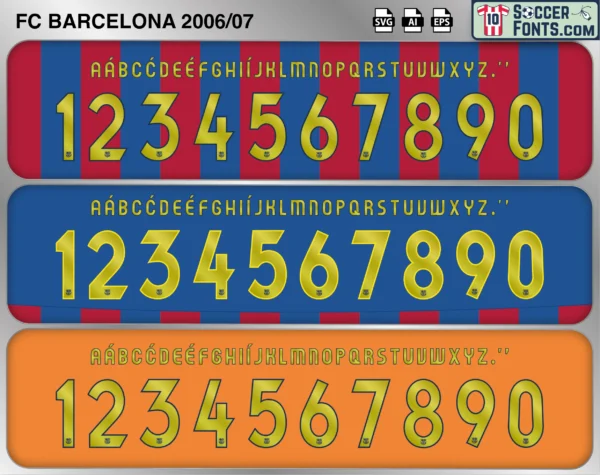
FC Barcelona 2006-07 Font
The FC Barcelona 2006-07 font is an editable soccer jersey lettering design in vector format inspired by the FC Barcelona kit style used during the 2006-07 football season. This football font artwork is prepared for football shirt recreations, custom jersey projects, football kit mockups and sports graphic design workflows.
The FC Barcelona 2006-07 font became associated with one of the final seasons of the Ronaldinho-led era at Camp Nou. Barcelona battled Real Madrid closely in the La Liga title race but ultimately finished second due to the head-to-head tiebreaker despite matching their rivals on points. In Europe, the club’s Champions League defense ended earlier than expected, yet the squad continued to showcase some of the most entertaining football of the period. FC Barcelona shirts from the 2006-07 season remain popular among football shirt collectors and supporters because of their connection to Ronaldinho’s peak years, Messi’s emergence and one of the most talented squads assembled in modern football. The FC Barcelona 2006-07 font reflects an important chapter between European glory and the next evolution of Barcelona’s football identity.